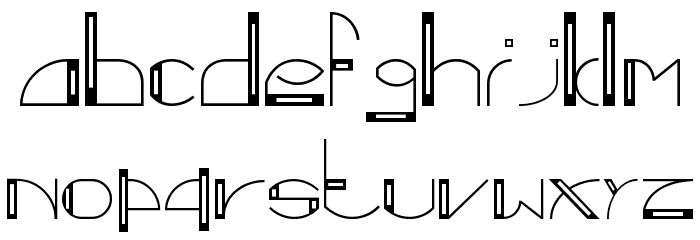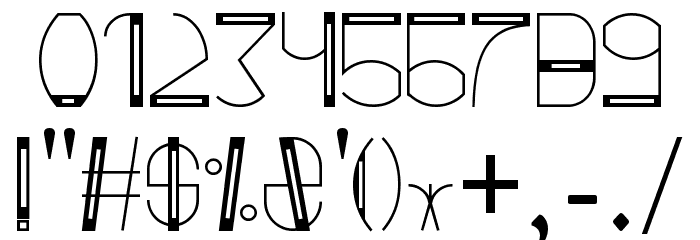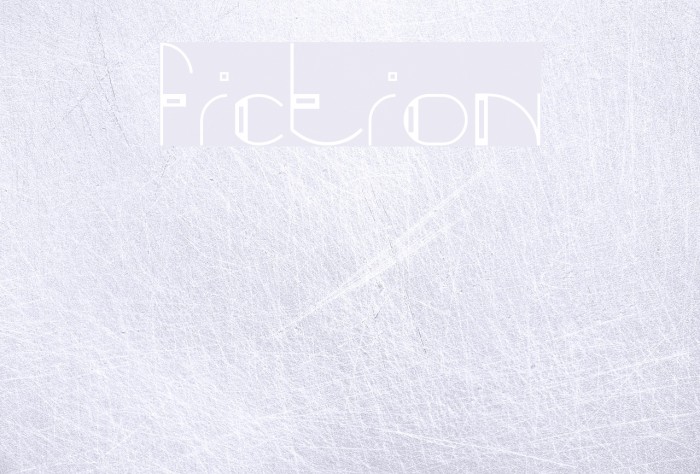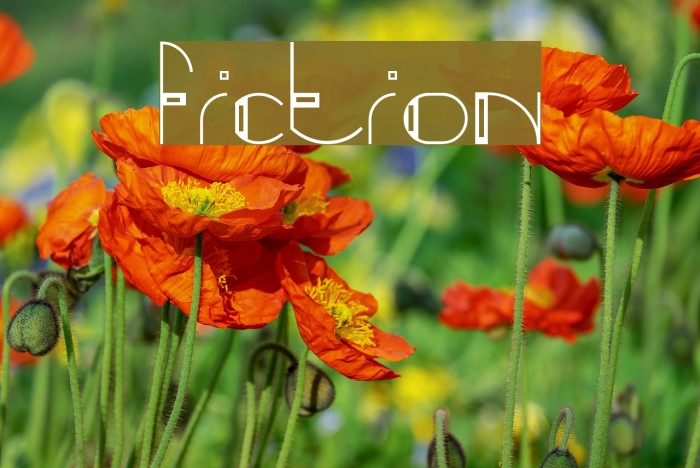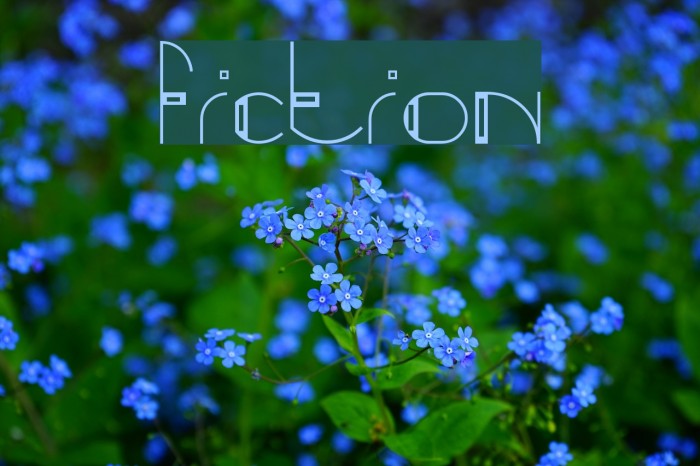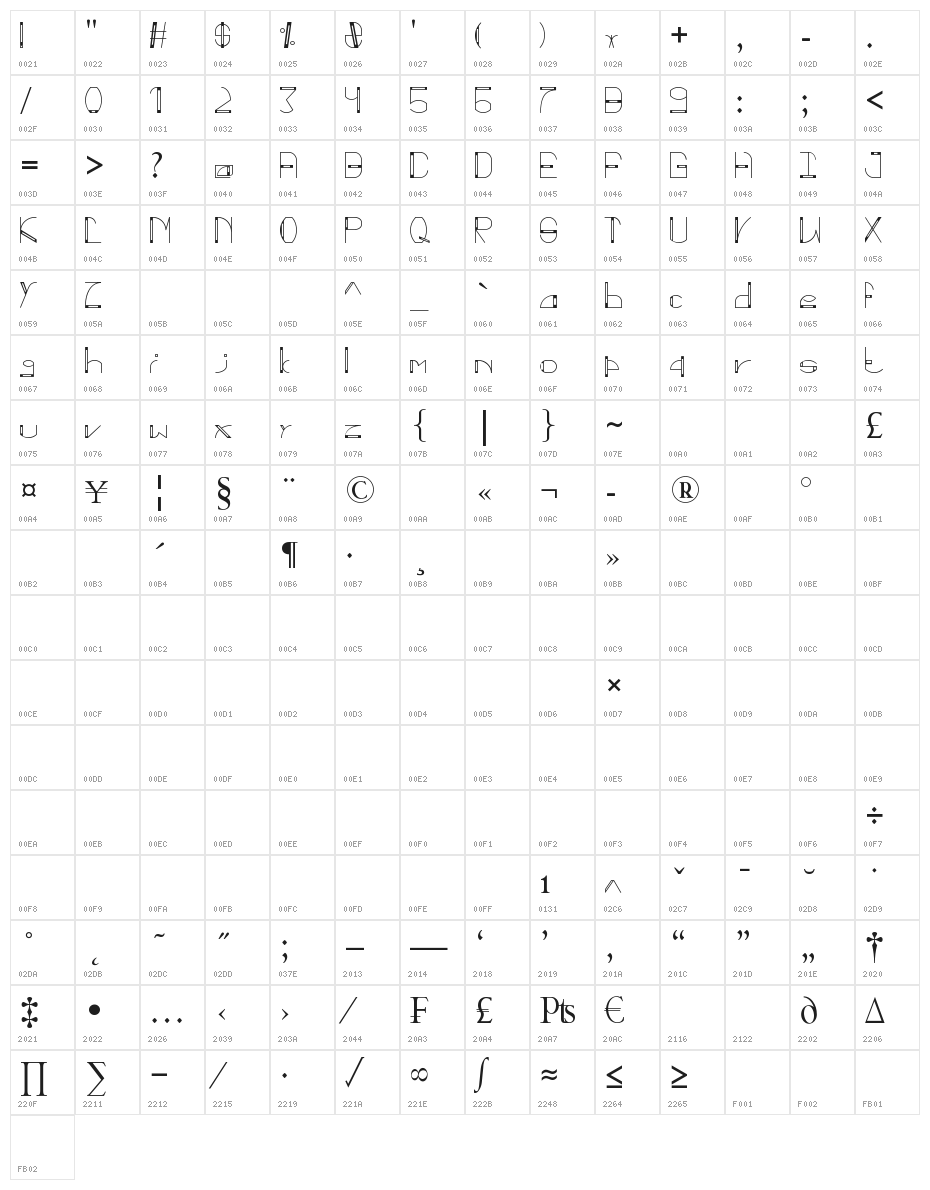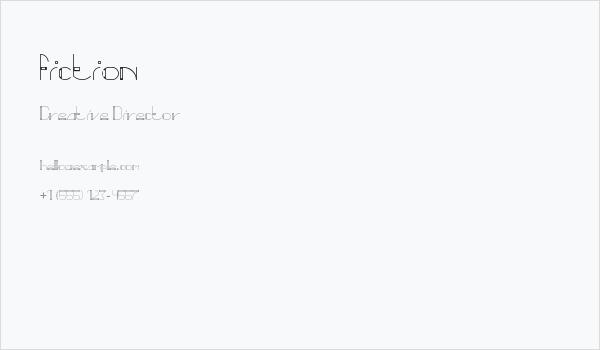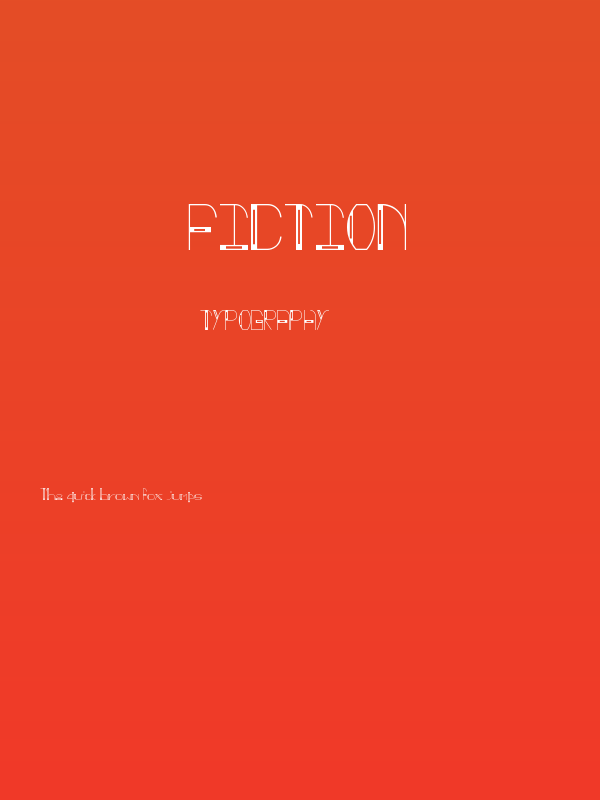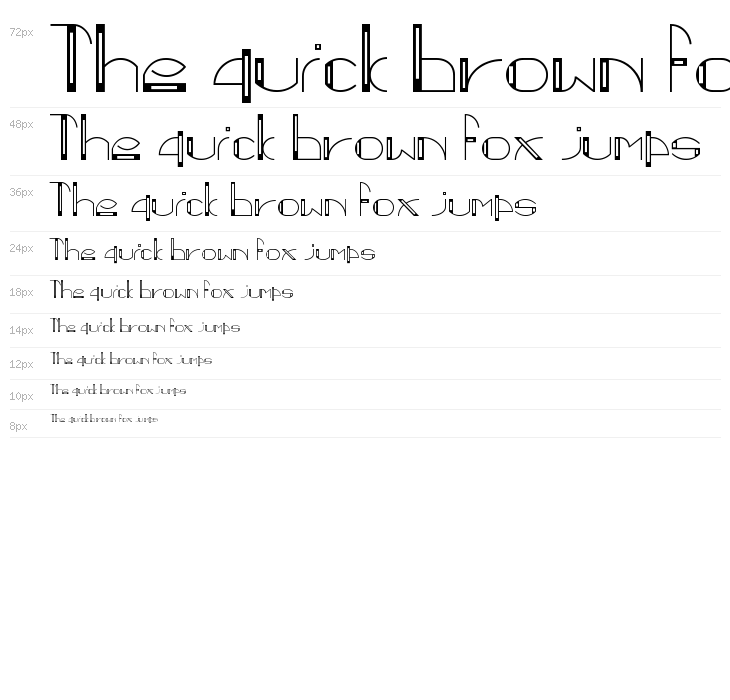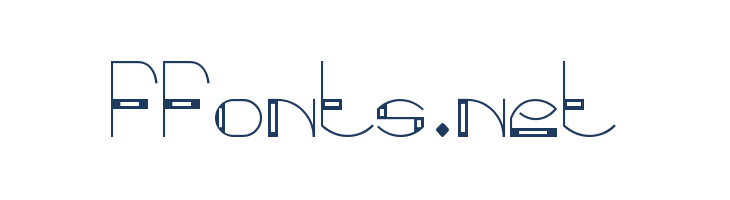
fiction Font
This font features a highly stylized and geometric design, characterized by its unique combination of thick and thin strokes. The letters are constructed with a futuristic aesthetic, incorporating angular shapes and sharp edges. The uppercase letters are bold and commanding, while the lowercase letters maintain a consistent style with a slightly more playful touch. Numbers and special characters follow the same geometric theme, ensuring a cohesive look across all elements. The font's distinct style makes it suitable for creative and modern projects, where a bold statement is desired.
A futuristic, geometric font with bold, angular shapes and contrasting strokes.
- Proposed Projects: Ideal for sci-fi themed designs, modern branding, tech-related projects, and eye-catching headlines.